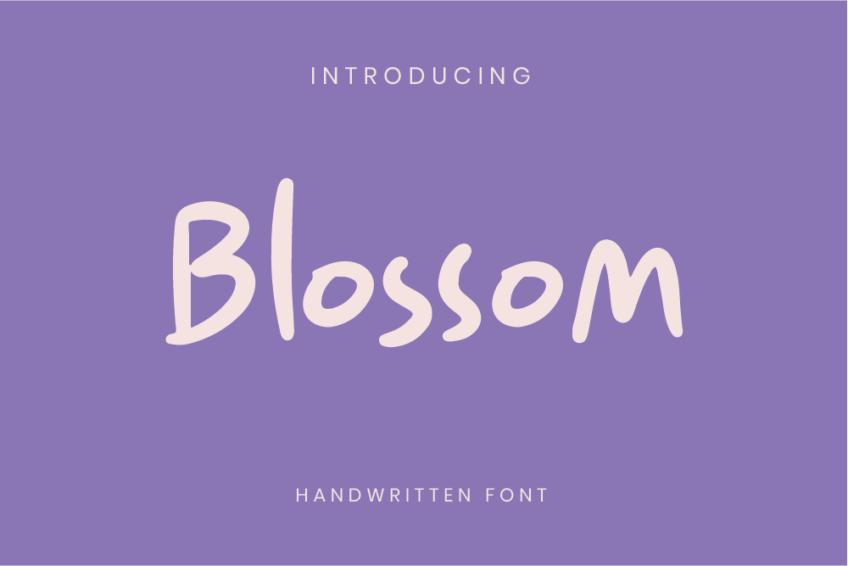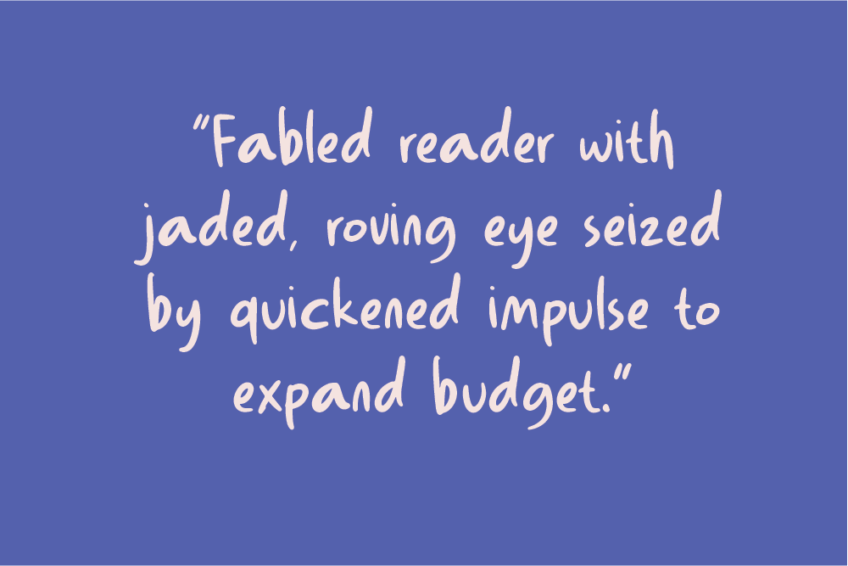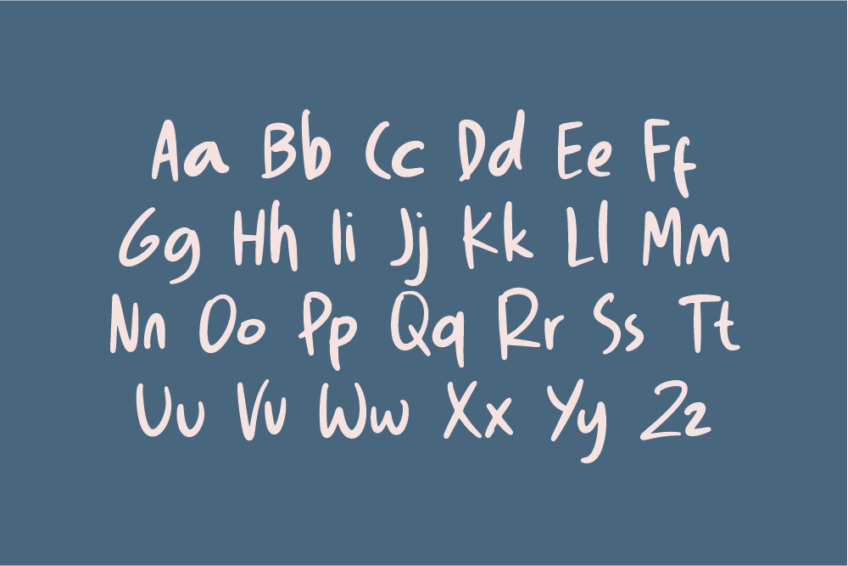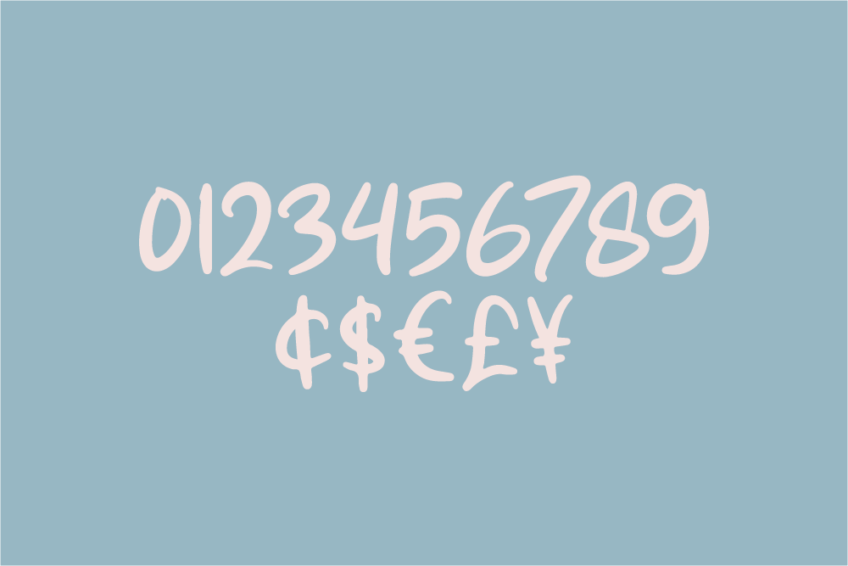
Image Preview of Blossom Handwritten Font - A Handwriting Font Bold
Blossom HF
Dive into the captivating world of Blossom Handwriting Font Bold, where handwritten charm meets bold sophistication. Blossom Handwritten Font is your go-to choice for making a strong statement with a touch of personal flair. This Handwriting Font Bold strikes the perfect balance between the intricacies of hand-drawn characters and the boldness that demands attention.
Key Features:
• Bold Elegance: Blossom stands out with its bold strokes, adding a touch of elegance to every letter.
• Versatile Usage: Ideal for various design projects, Blossom enhances the visual appeal of posters, flyers, branding materials, and more.
• Authentic Handwriting: Each character is crafted with authenticity, bringing your words to life with a genuine handwritten feel.
Make your creative projects blossom with personality and distinction. Choose Blossom Handwritten Font today and let your words speak boldly with a touch of handwritten charm. Elevate your designs to new heights with this versatile and captivating font.
Blossom Handwritten Font